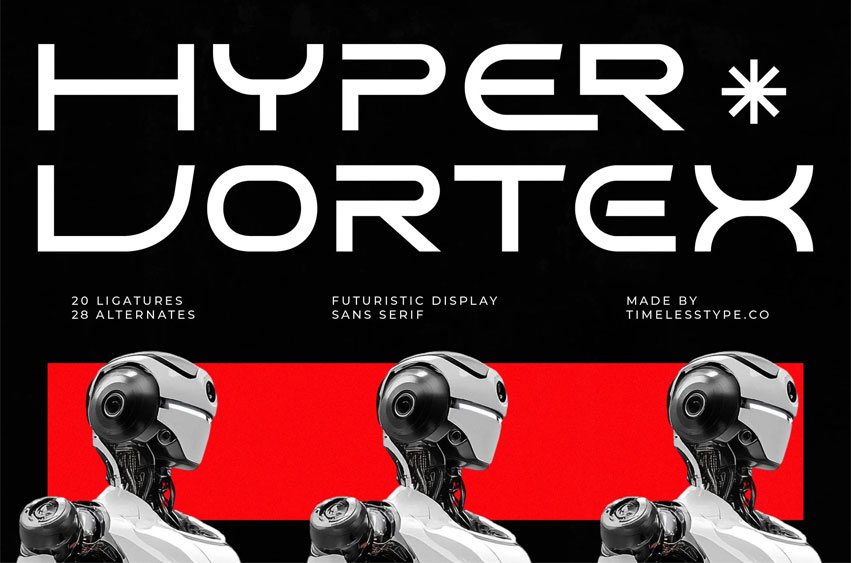
Hyper Vortex Font is a futuristic display sans-serif font with sharp geometric lines and modern sci-fi styling, designed to bring innovation and impact to your projects. Featuring creative ligatures and bold alternates, this typeface is perfect for logos, posters, headlines, packaging, branding, and editorial layouts.
With its cutting-edge design and dynamic presence, Hyper Vortex is a versatile choice for both digital and print projects, adding a strong futuristic character to every design.